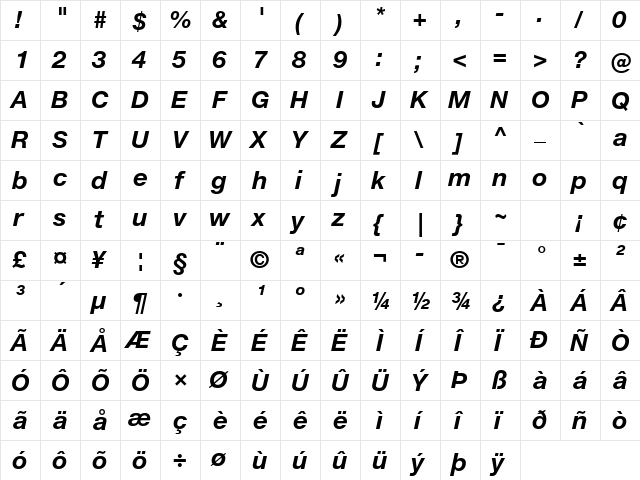
Helvetica Neue eText Pro Bold Italic
| Foundry | Linotype GmbH |
| Designer | Linotype Design Studio |
Design Context for Helvetica Neue eText Pro Typeface
Helvetica Neue eText Pro offers clean, dependable letterforms without strong stylistic allegiance, making it a practical choice for designers who need flexibility. The slanted form adds forward momentum and visual energy. The heavy weight commands attention and anchors typographic hierarchies.
Pro Tip: Use Helvetica Neue eText Pro for emphasis, pull quotes, and subheadings where its slanted energy can add rhythm to the layout.